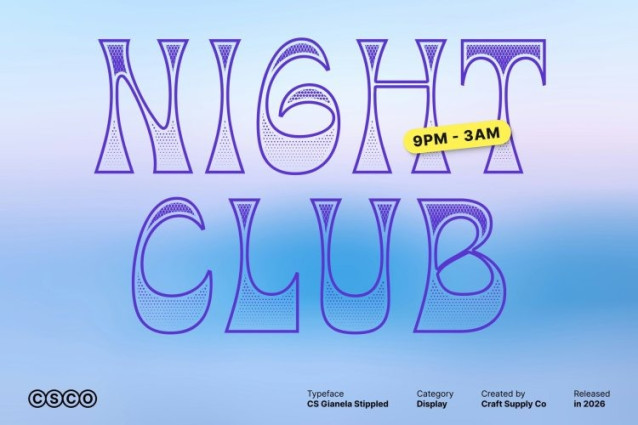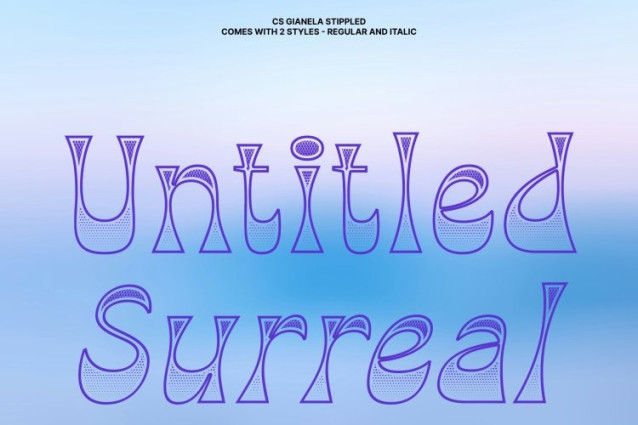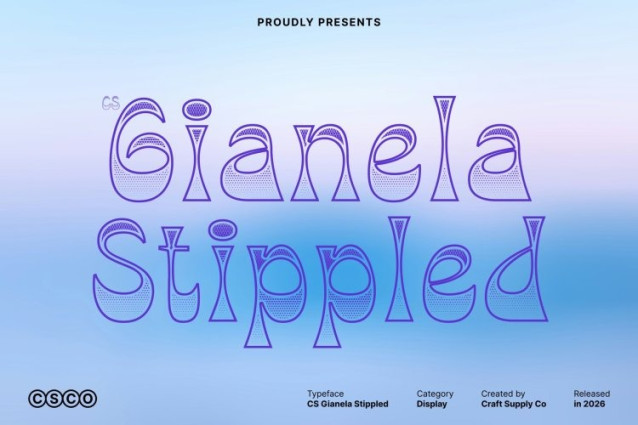
CS Gianela Stippled Font
CS Gianela Stippled Font is a striking reverse contrast display font that blends classic typography with a bold visual twist. Its defining feature lies in the reversed weight distribution where the vertical stems appear thinner while the serifs and horizontal endings become thicker creating a distinctive and dynamic typographic rhythm. Enhanced with a stippled texture, the font gains a subtle dotted surface that adds depth and a handcrafted feel, enriching its retro character.
Bold Structure with Dynamic Visual Movement
The unusual contrast pattern gives a lively and engaging presence. The interplay between thin stems and thick terminals creates a sense of motion and visual tension, allowing the letterforms to stand out with confidence. The stippled detailing adds an extra layer of visual richness, complementing the bold structure without overpowering the design.
Vintage Retro Style with Contemporary Appeal
Inspired by the bold typography of the 1960s and 1970s, captures a nostalgic retro aesthetic while maintaining a modern sensibility. Its expressive shapes reflect the vibrant design language of vintage posters and advertisements, making it ideal for projects that celebrate classic style with a fresh perspective.
Perfect for Retro-Inspired Design Projects
This font shines in retro movie posters, vintage-style branding, album covers, editorial headlines, packaging, and nostalgic promotional graphics. Its unique contrast structure and textured surface help create visually impactful compositions that feel both timeless and distinctive.